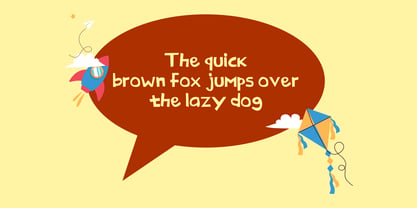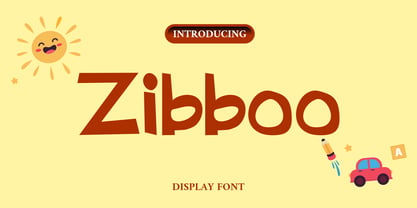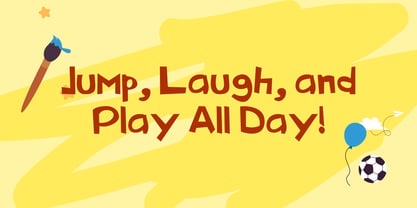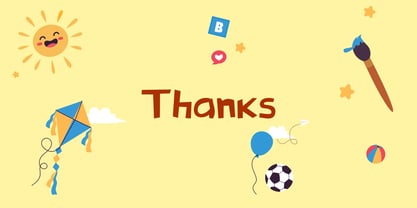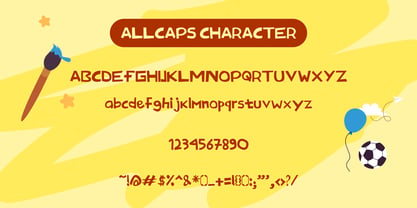
Zibboo
by Mei Suseno
The Zibboo Font Family was designed by Mei Suseno and published by Mei Suseno. Zibboo contains 1 styles. More about this family
This font features a playful and modern display style with bold geometric shapes and smooth rounded edges. Its unique character design creates a fun, friendly, and energetic appearance that instantly grabs attention. The combination of clean lines and quirky letterforms gives the typeface a creative and youthful personality while maintaining excellent readability.
Perfect for kids-themed designs, educational projects, playful branding, posters, packaging, social media graphics, and creative content, this font brings a cheerful and imaginative vibe to any composition. The stylish all-caps look and handcrafted feel make it ideal for eye-catching headlines and colorful visual designs.
Designers: Mei Suseno
Foundry: Mei Suseno